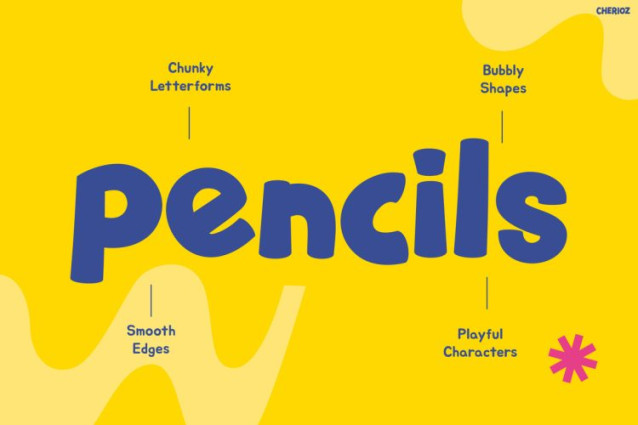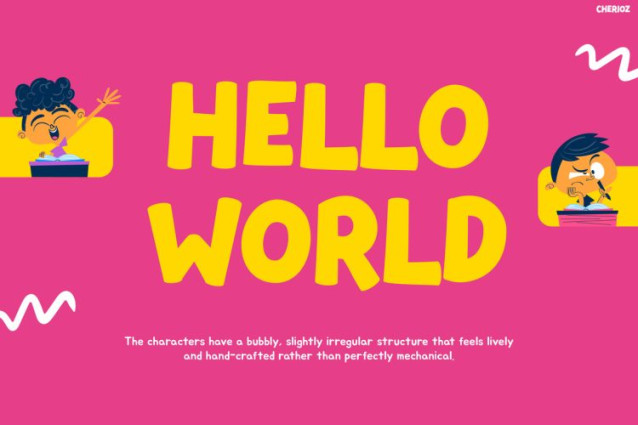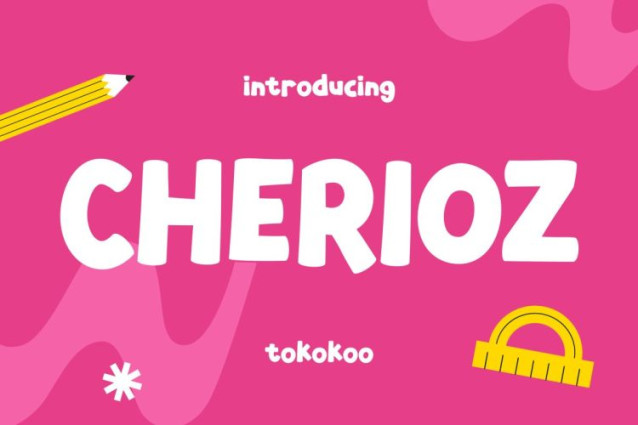
Cherioz Font
Cherioz Font is a vibrant and cheerful typeface created to bring the joyful spirit of childhood into every design. At first glance, its soft rounded shapes, bold playful curves, and friendly personality instantly capture attention. Moreover, the font is inspired by colorful classrooms, creative learning tools, and the natural imagination of kids. As a result, Cherioz delivers a fun and engaging visual style that feels both lively and approachable. In addition, its balanced structure keeps the letters easy to read while still maintaining a strong, playful character. Because of this, the font works perfectly for designs that aim to communicate creativity, positivity, and excitement.
Kids Font Cherioz is a delightful display typeface designed to make kid-focused designs look more engaging and memorable. Not only does it feature bubbly and expressive letterforms, but it also pairs beautifully with bright colors, playful illustrations, and educational themes. Furthermore, the smooth flow of each character helps create a friendly and energetic appearance. Therefore, whether you are designing digital graphics or printed materials, Cherioz adds warmth, fun, and personality to your work. Ultimately, it transforms ordinary text into a playful visual element that children instantly love.